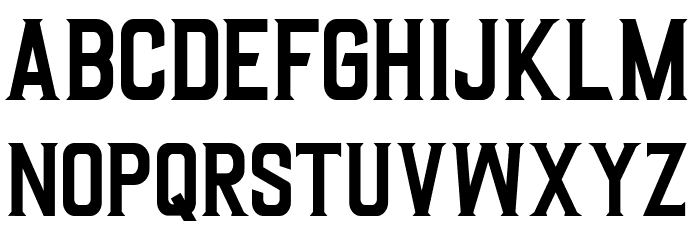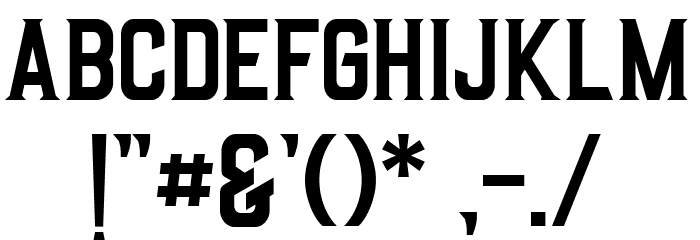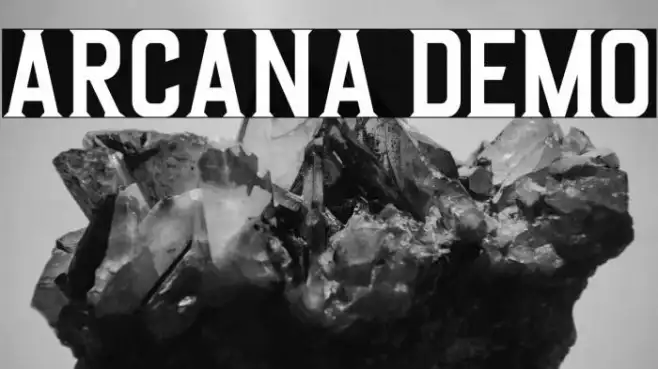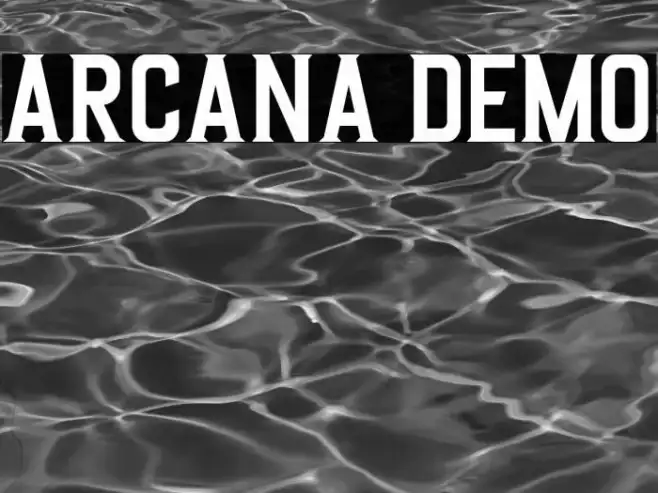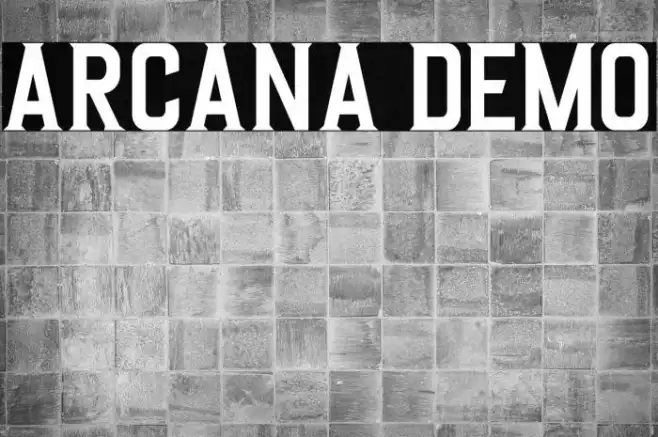
Arcana DEMO Font
This font features a bold and commanding presence with its strong, angular lines and geometric shapes. The uppercase letters are particularly striking, with a distinct, modern edge that makes them stand out. The characters are evenly spaced, providing a balanced and cohesive look. The font's design is reminiscent of vintage styles but with a contemporary twist, making it versatile for various applications. The special characters are crafted with the same attention to detail, ensuring consistency across all glyphs. This font is ideal for projects that require a bold statement, such as branding, posters, and headlines.
A bold, geometric font with a modern twist and vintage influences.
- Font: Arcana DEMO
- Proposed Projects: Ideal for branding, posters, headlines, and any project requiring a bold statement.